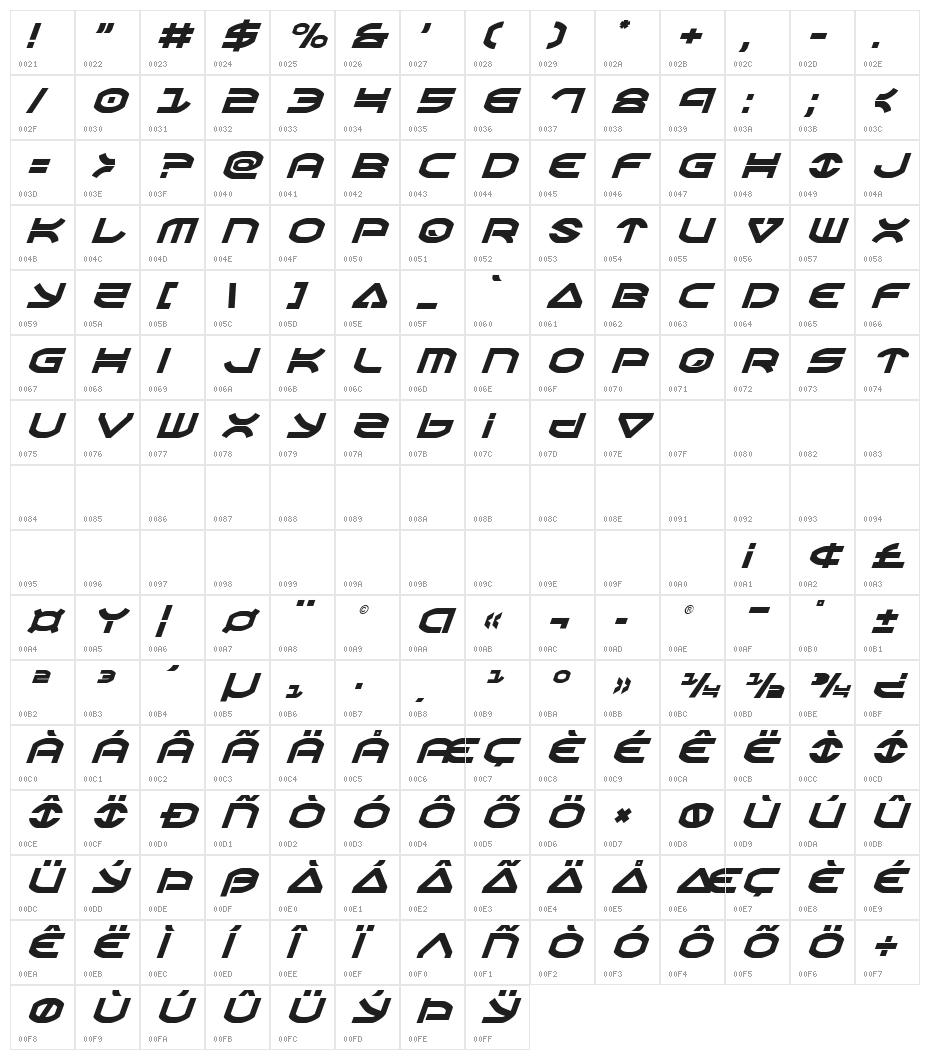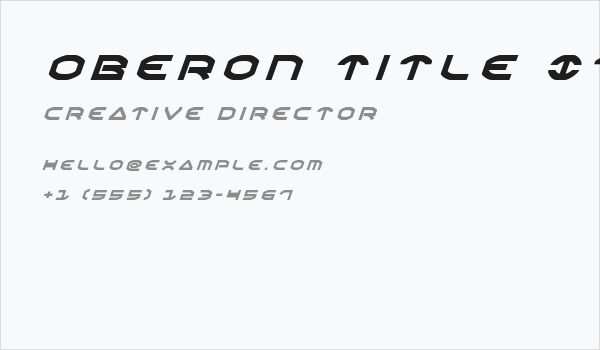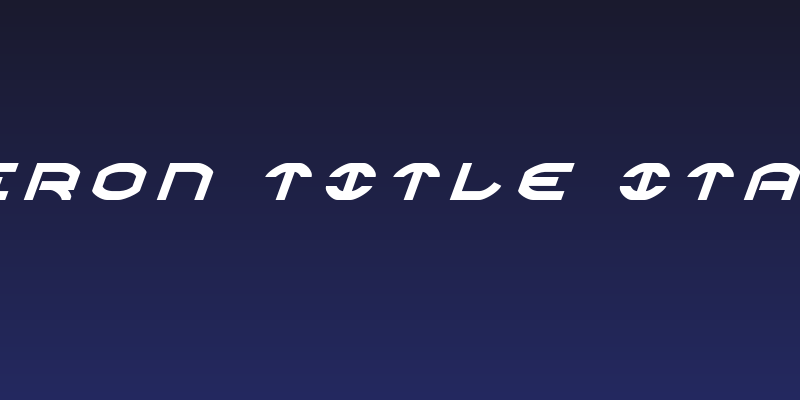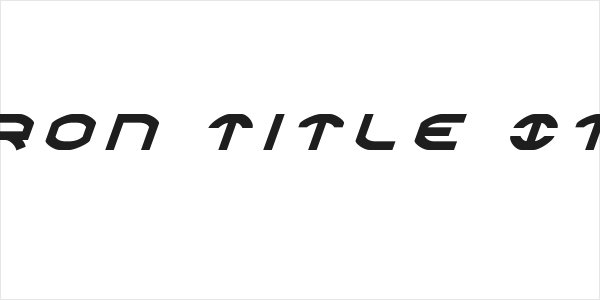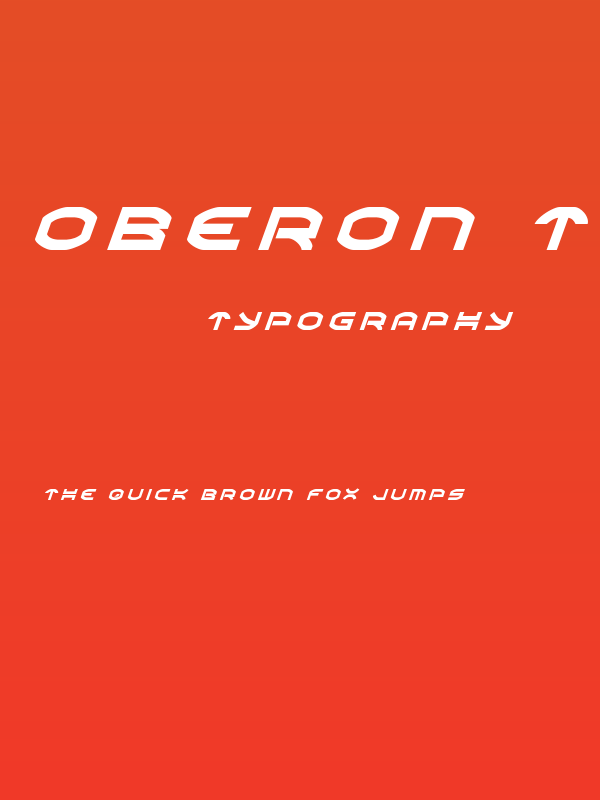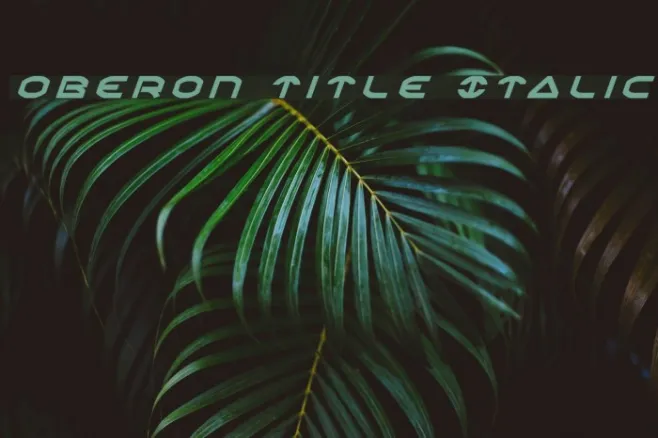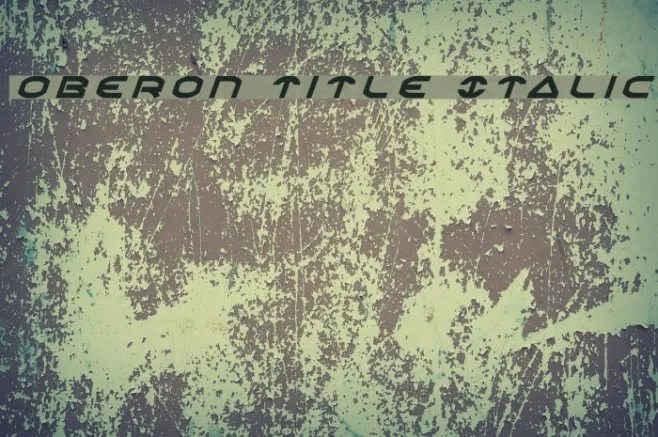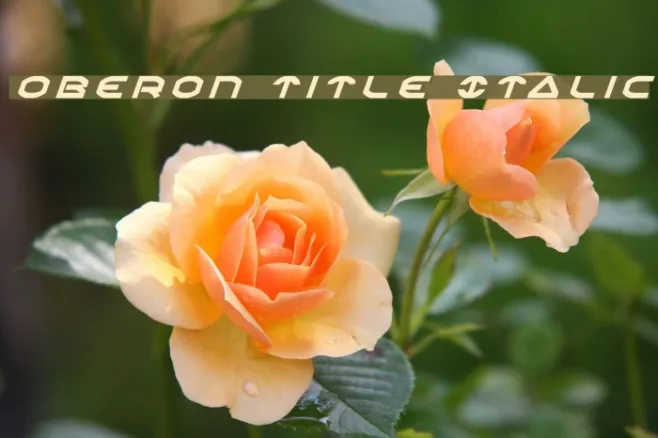
Oberon Title Italic Font
Oberon Title Italic Description
This font exhibits a futuristic and dynamic style, characterized by its italicized and angular letterforms. The characters are bold and slightly condensed, with a unique geometric flair that gives them a modern and edgy appearance. The uppercase and lowercase letters maintain a consistent slant, enhancing the sense of motion and speed. The numbers and special characters follow the same design principles, ensuring uniformity across the typeface. This font's distinctive look makes it suitable for projects that require a contemporary and innovative touch.
OBERON-TITLE-ITALIC UPPERCASE
OBERON-TITLE-ITALIC LOWERCASE
OBERON-TITLE-ITALIC OTHER CHARS
| Proposed Projects | Ideal for technology branding, sci-fi themed designs, video game titles, and modern advertising campaigns. |